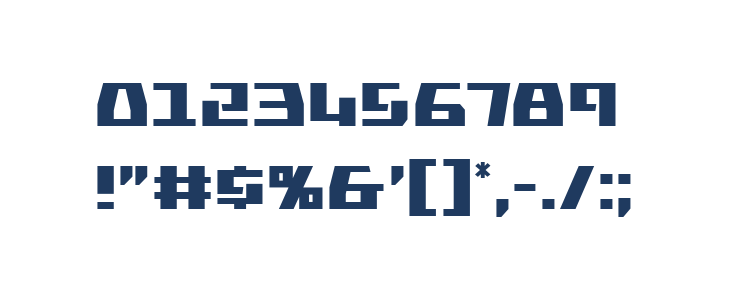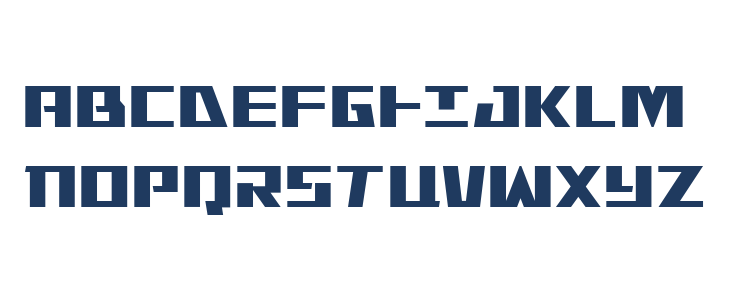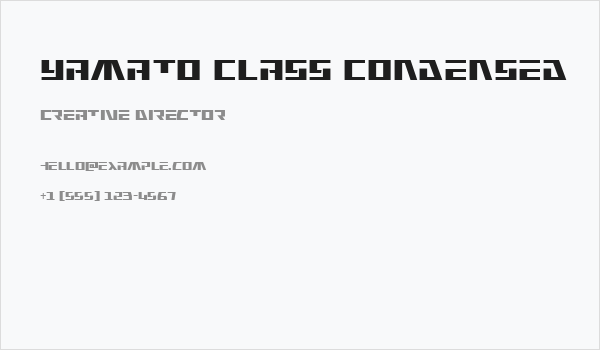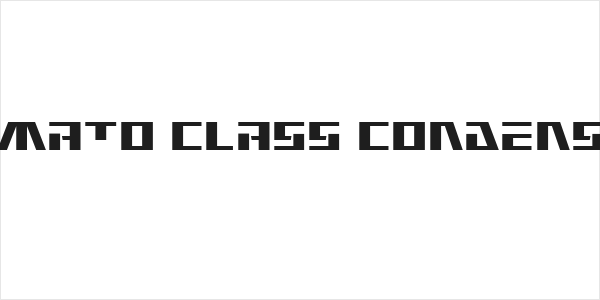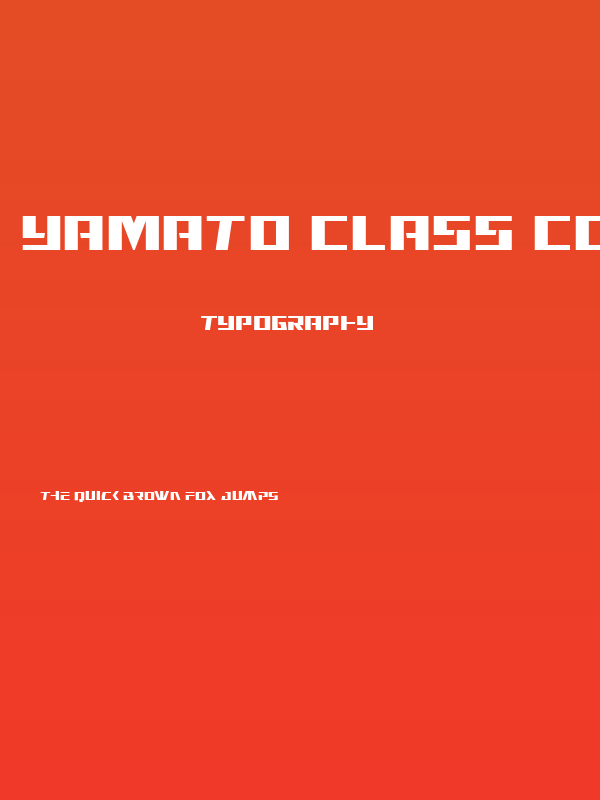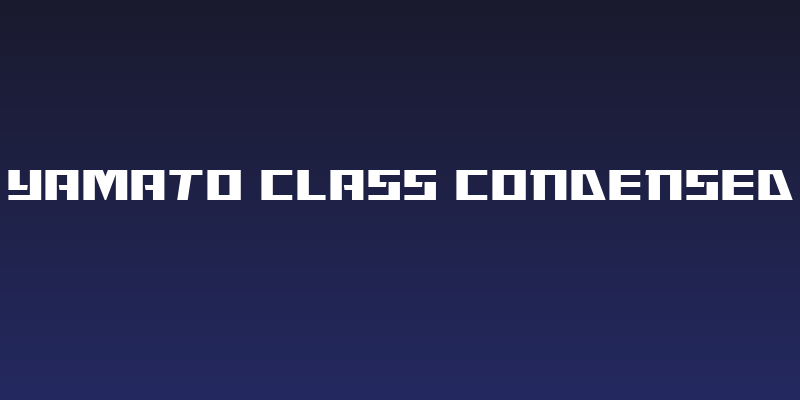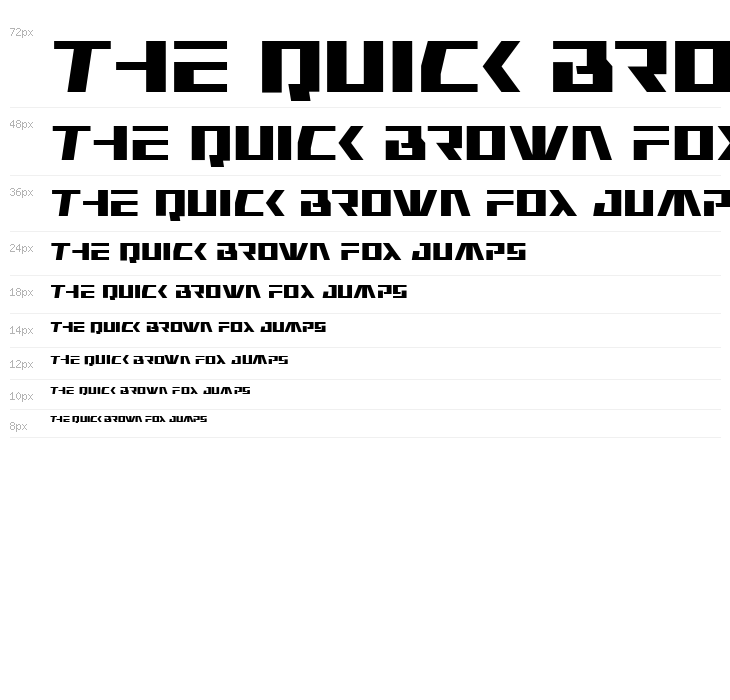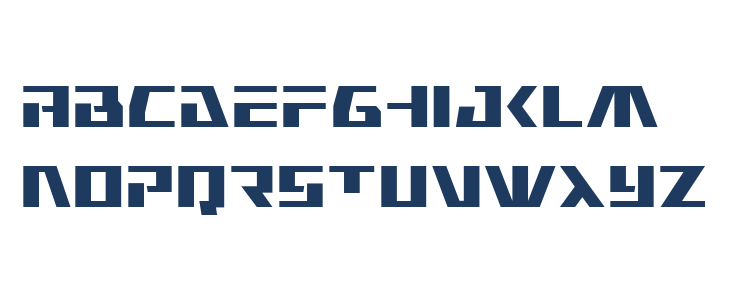
Yamato Class Condensed Font
Yamato Class Condensed Description
A geometric, angular display typeface with condensed letterforms and strong, blocky shapes. The characters are constructed with sharp edges and minimal curves, giving a futuristic and industrial appearance. The font maintains consistent stroke thickness and features unique, stylized cuts and notches in many glyphs.
| Overall Style | Futuristic, Industrial, Decorative |
| Use Case | Headlines, Logos, Posters, Signage |
| Proposed Projects | Posters, video game titles, sci-fi branding, event flyers, signage, logos. |